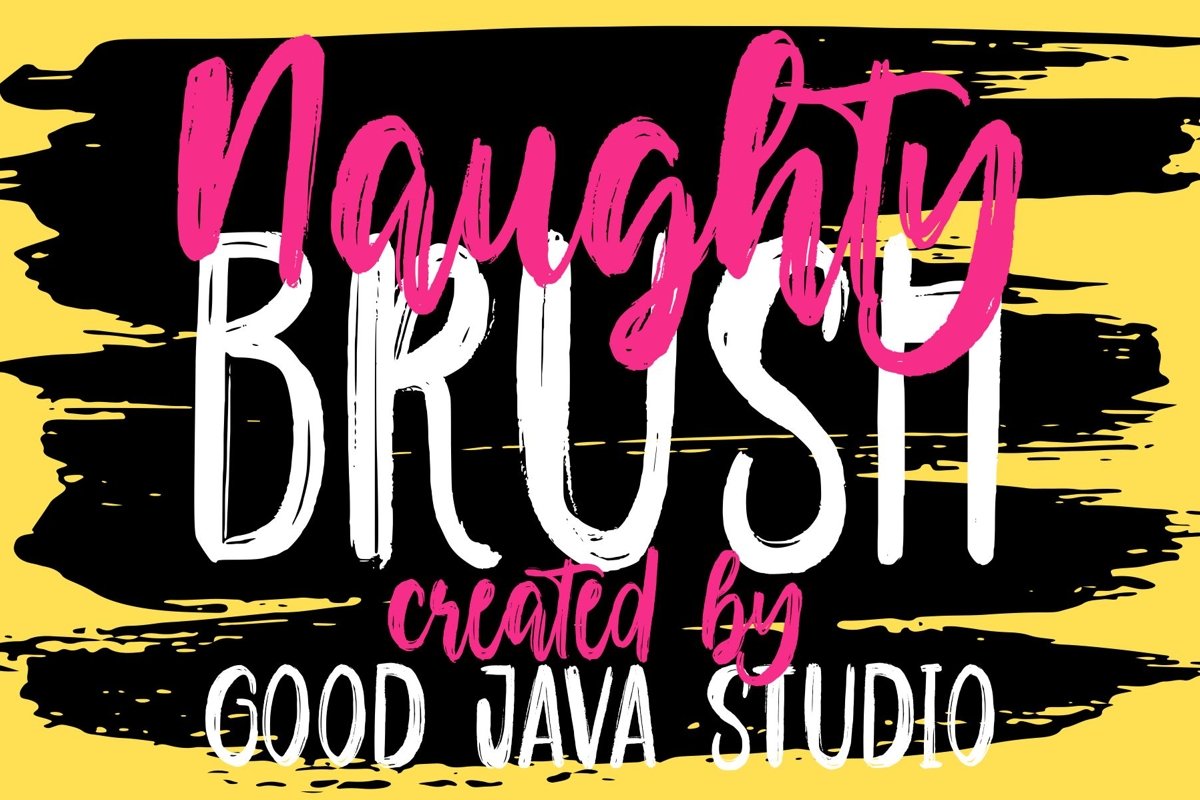
Naughty - Script Brush
Naughty Brush One
Naughty Brush Two
Introducing Naughty - Script Brush
Naughty - Script brush is new font brushed very interesting, also provided some font duo and swashes extra. Also with additional Naughty Brush One, a font slant harmony to be combined with Naughty Brush Two. Perfect for projects brands, logos, product packaging, posters, invitations, greeting cards, news, blogs, everything.
• Very great for branding, logotype, handlettering, invitations, or fashion branding.